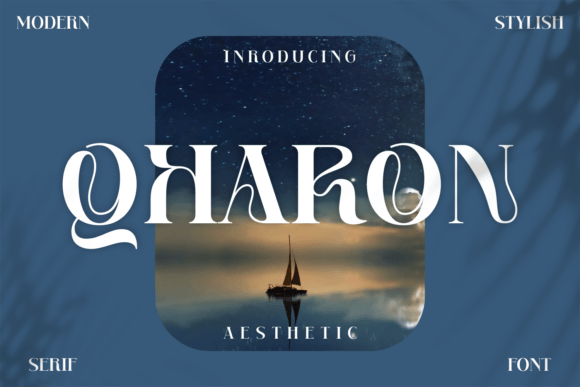
**Introducing Qharon Font: The Epitome of Elegance and Sophistication**
Welcome to the realm of typography, where artistry meets innovation. Qharon Font, a captivating display font, emerges from the palette of shineink.designlab, ready to transform your creative endeavors into masterpieces. Its meticulously crafted serifs and distinctive letterforms orchestrate a visual symphony that captivates the eye and stirs the soul.
**A Timeless Beauty for Luxury and Elegance**
Qharon Font is the quintessence of luxury and elegance. Its carefully balanced strokes and intricate details evoke a sense of opulence and refinement. With this font, your designs transcend the ordinary, embracing a realm of exquisite beauty. Whether you're crafting wedding invitations, branding for high-end products, or designing sophisticated marketing materials, Qharon Font is your trusted companion.
**Feminine Flourishes for a Touch of Grace**
Qharon Font exudes a distinctly feminine charm, reminiscent of delicate brushstrokes and flowing calligraphy. Its graceful curves and elegant flourishes lend a touch of romance and allure to your creations. Whether you're designing wedding stationery, fashion catalogs, or personal branding materials, Qharon Font adds a touch of femininity that captivates the senses.
**The Perfect Harmony of Modernity and Chic**
Qharon Font embodies the perfect blend of modernity and chic. Its clean lines and contemporary aesthetic perfectly complement sleek and minimalist designs. Whether you're creating website layouts, social media graphics, or product packaging, Qharon Font effortlessly elevates your designs to new heights of sophistication.
**Unleash Your Creativity, Express Your Style**
**Experience the Qharon Font Difference**
Qharon Font is more than just a collection of letters; it's an artistic expression that breathes life into your designs. Its versatility extends from wedding logos and branding to fashion and lifestyle projects, making it an indispensable tool in your creative arsenal. Experience the transformative power of Qharon Font and unlock a world of elegance, femininity, and modern chic.